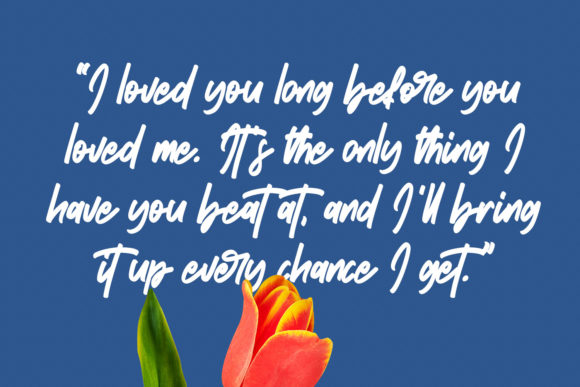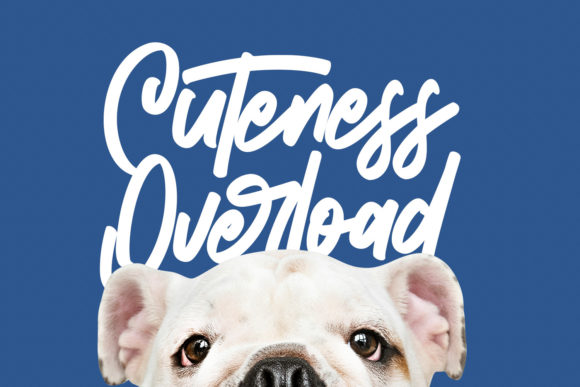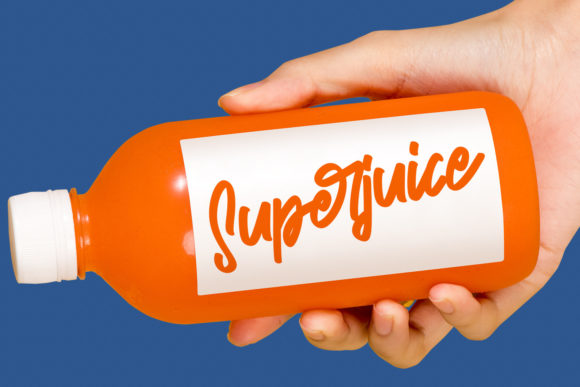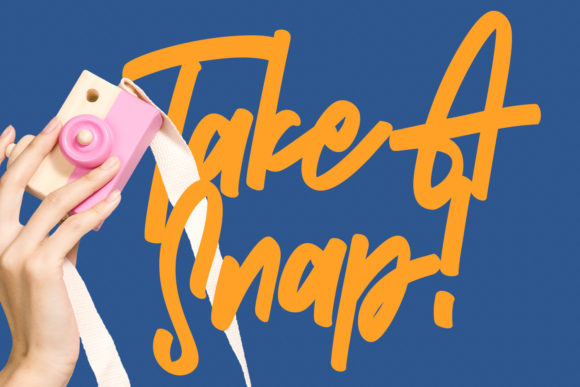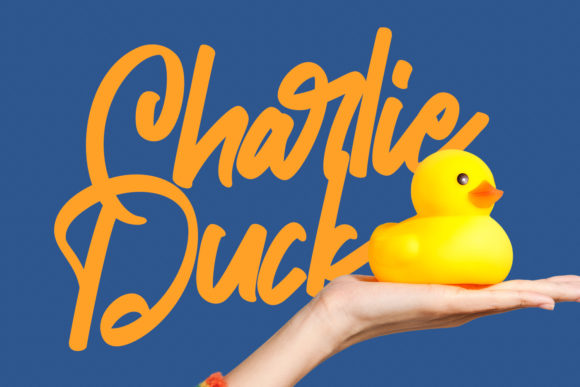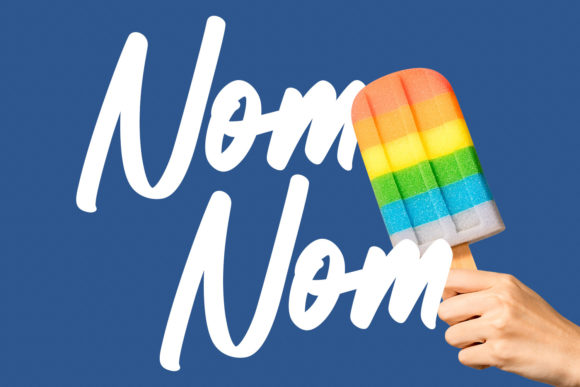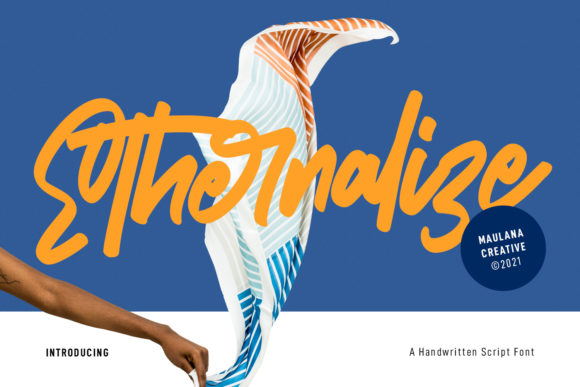
Ethereal Elegance: Discover the Beauty of Ethernalize Font
In the world of typography, fonts play a crucial role in conveying the tone and personality of a brand, product, or creative project. Among the numerous fonts available, Ethernalize stands out as a stunning handwritten font that can elevate your designs to new heights. In this article, we’ll explore the features, benefits, and uses of Ethernalize font, and why it’s an excellent choice for designers and crafters.
What is Ethernalize Font?
Ethernalize is an elegant handwritten font designed to add a touch of sophistication and luxury to your creative projects. Its flowing lines, delicate curves, and refined strokes make it perfect for a wide range of applications, from logo design and social media posts to movie and book titles, and more.
Key Features of Ethernalize Font
- Elegant Handwritten Style: Ethernalize boasts a beautiful, handwritten aesthetic that exudes elegance and refinement.
- Versatile: This font is suitable for various design projects, including logos, social media graphics, movie and book titles, and more.
- Easy to Read: Despite its ornate appearance, Ethernalize is highly legible, making it perfect for body text and captions.
- Scalable: This font is designed to look great at any size, from small captions to large headlines.
Benefits of Using Ethernalize Font
So, why choose Ethernalize font for your next project? Here are some benefits that make it an excellent choice:
- Adds Sophistication: Ethernalize’s elegant design instantly adds a touch of sophistication and luxury to your projects.
- Enhances Brand Identity: This font can help you create a unique and memorable brand identity that sets you apart from the competition.
- Boosts Creativity: With Ethernalize, you can experiment with various design ideas and create stunning visual content.
- Time-Saving: This font is easy to use and doesn’t require extensive design experience, saving you time and effort.
Use Cases for Ethernalize Font
Ethernalize font is incredibly versatile, making it suitable for a wide range of design projects. Here are some popular use cases:
- Logo Design: Create a stunning logo that reflects your brand’s personality and values.
- Social Media Graphics: Elevate your social media presence with elegant graphics, posts, and stories.
- Movie and Book Titles: Add a touch of glamour to your movie and book titles with Ethernalize’s elegant font.
- Wedding and Event Invitations: Create beautiful, custom invitations that set the tone for your special event.
- Packaging Design: Use Ethernalize to create eye-catching packaging that stands out on store shelves.
Tips for Using Ethernalize Font
To get the most out of Ethernalize font, here are some tips to keep in mind:
- Experiment with Colors: Try pairing Ethernalize with different colors to create unique and eye-catching designs.
- Play with Sizes: Experiment with different font sizes to create visual hierarchy and add emphasis to your text.
- Mix and Match: Combine Ethernalize with other fonts to create a unique and interesting typography.
In conclusion, Ethernalize font is a stunning handwritten font that can elevate your designs to new heights. Its elegant appearance, versatility, and ease of use make it an excellent choice for designers and crafters. Whether you’re working on a logo design, social media graphics, or movie and book titles, Ethernalize is sure to add a touch of sophistication and luxury to your projects. So, why wait? Add Ethernalize to your creative toolkit and start creating stunning work today!